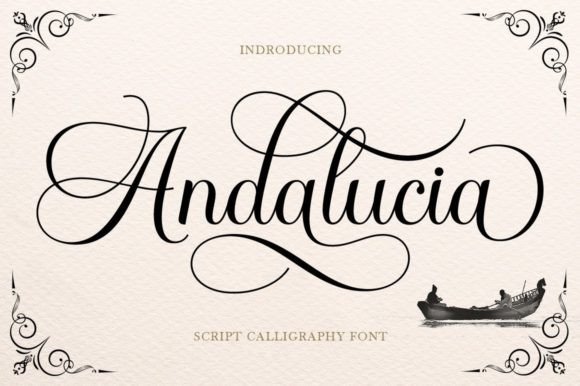
Introducing Andalucia Font, the perfect script font for all your invitation needs. Created by the talented Pista Mova, this calligraphic script font exudes elegance and sophistication. With its beautiful alternate characters, Andalucia adds a touch of charm to any project.
What sets Andalucia apart is its seamless blend of copperplate calligraphy and hand lettering style. The result is a font that is not only visually stunning but also incredibly easy to read. Its subtle yet clean design appeals to both feminine and masculine tastes, making it suitable for a wide variety of purposes.
Whether you're designing invitations, labels, menus, logos, or fashion-related content, Andalucia effortlessly elevates your work to a new level of glamour. Its versatility shines through, making it equally ideal for make-up packaging, stationery, and letterpress designs.
Andalucia's timeless appeal extends beyond the realm of design. Imagine the enchanting effect it would have on romantic novels, magazines, books, and greeting or wedding cards. The font's sensuality and simplicity captivate readers, drawing them into your narrative and making your words truly come alive.
Thanks to its PUA encoding, accessing Andalucia's vast array of extraordinary glyphs and ligatures is a breeze. This feature allows you to explore endless creative possibilities, making each project unique and personalized.
Embrace the allure of Andalucia Font and watch as it transforms your designs into works of art. Its captivating nature leaves a lasting impression on your audience, ensuring that your message is delivered with grace and sophistication.
In a world where first impressions matter, Andalucia stands out as a font that effortlessly captures attention. Let its timeless beauty and versatility speak for itself, and discover why it has become a favorite among designers, artists, and enthusiasts alike.